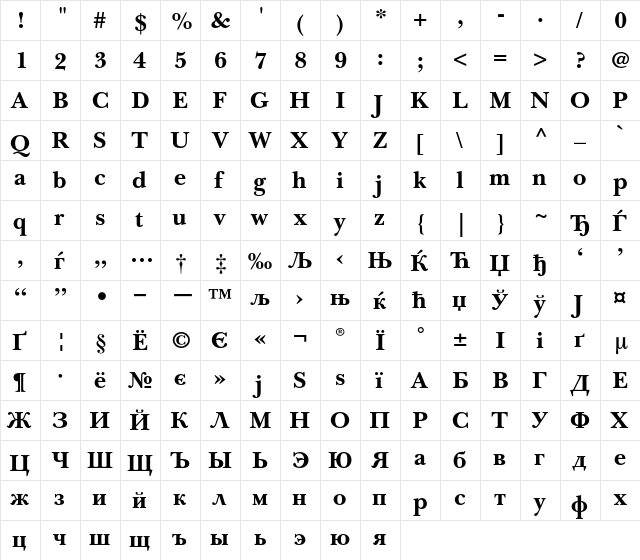
Baskerville Cyrillic Bold
Design Context for Baskerville Cyrillic Typeface
Baskerville Cyrillic offers clean, dependable letterforms without strong stylistic allegiance, making it a practical choice for designers who need flexibility. Its bold stroke weight gives it real presence on the page.